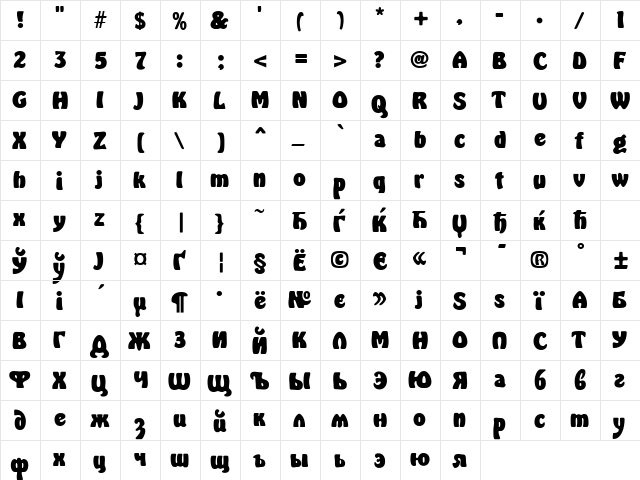
Bulka Regular
Design Context for Bulka Typeface
Bulka is a composed and adaptable typeface that performs quietly and consistently across a wide range of design contexts.